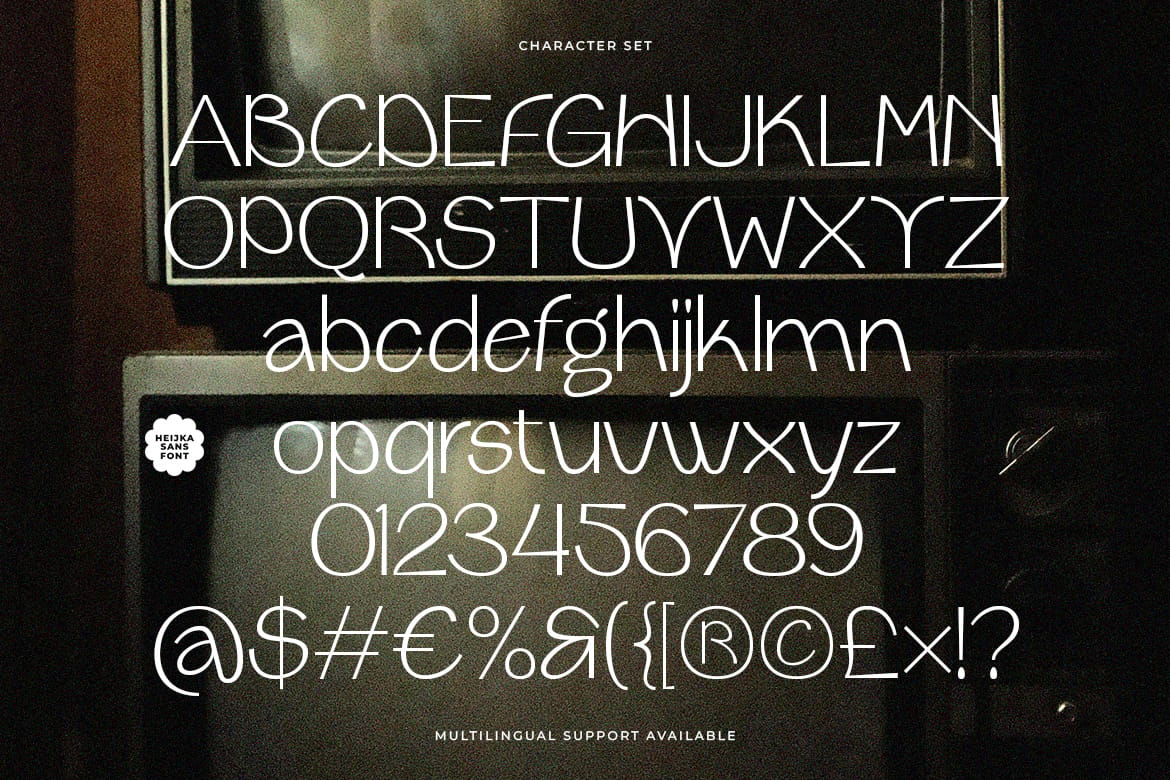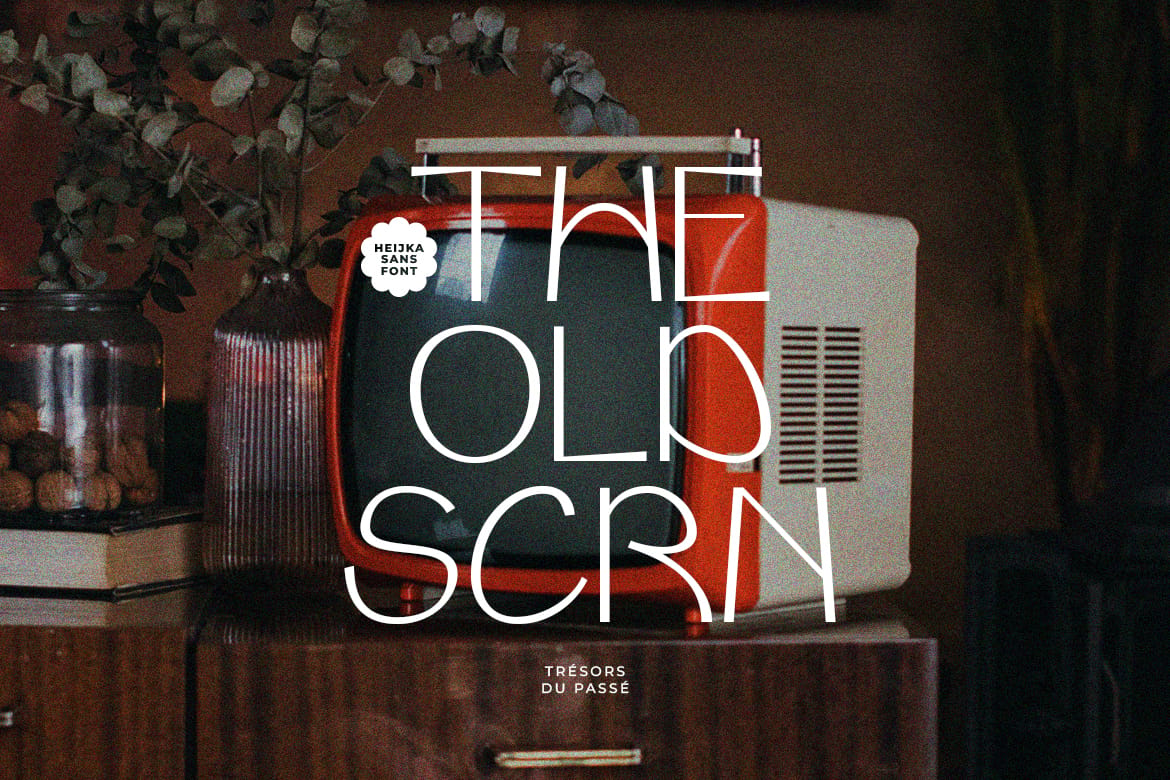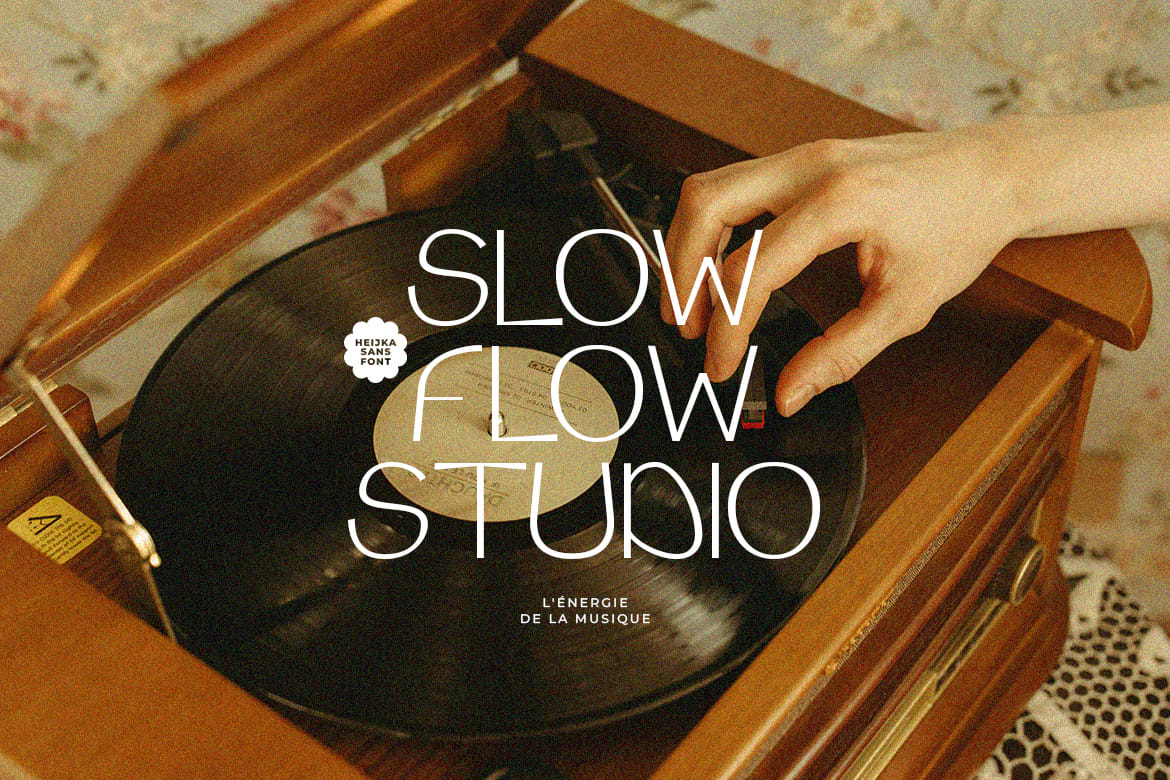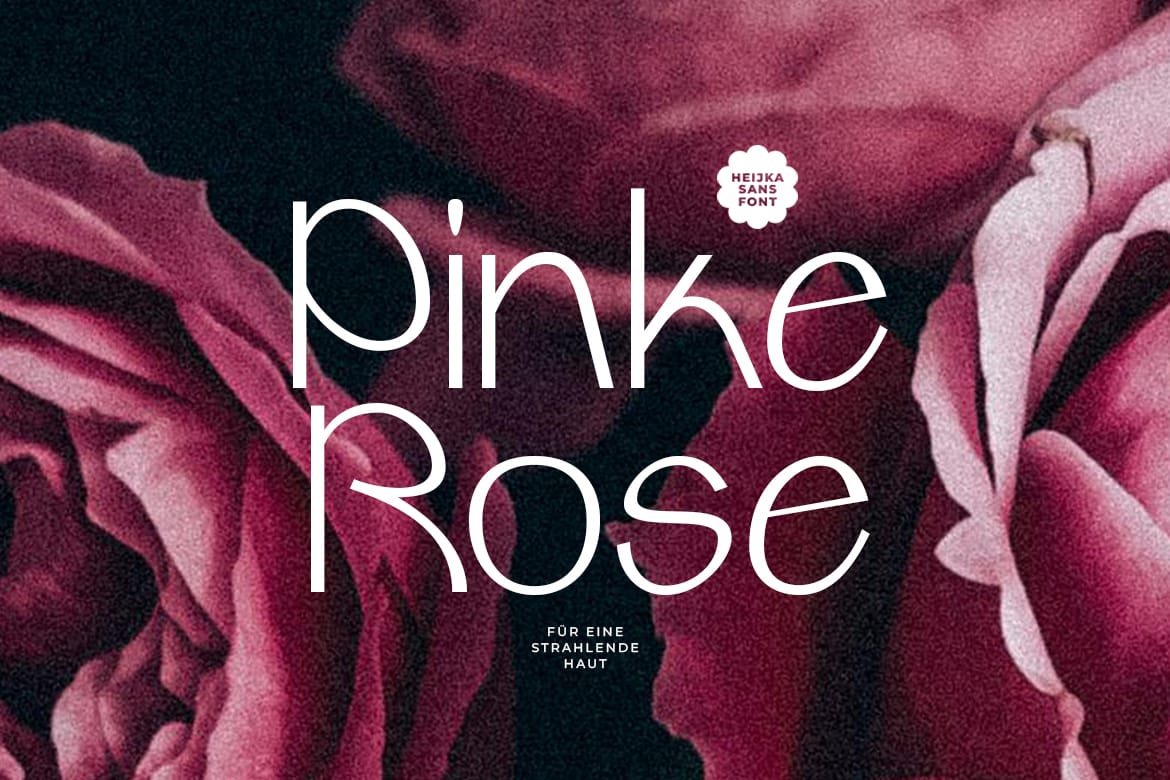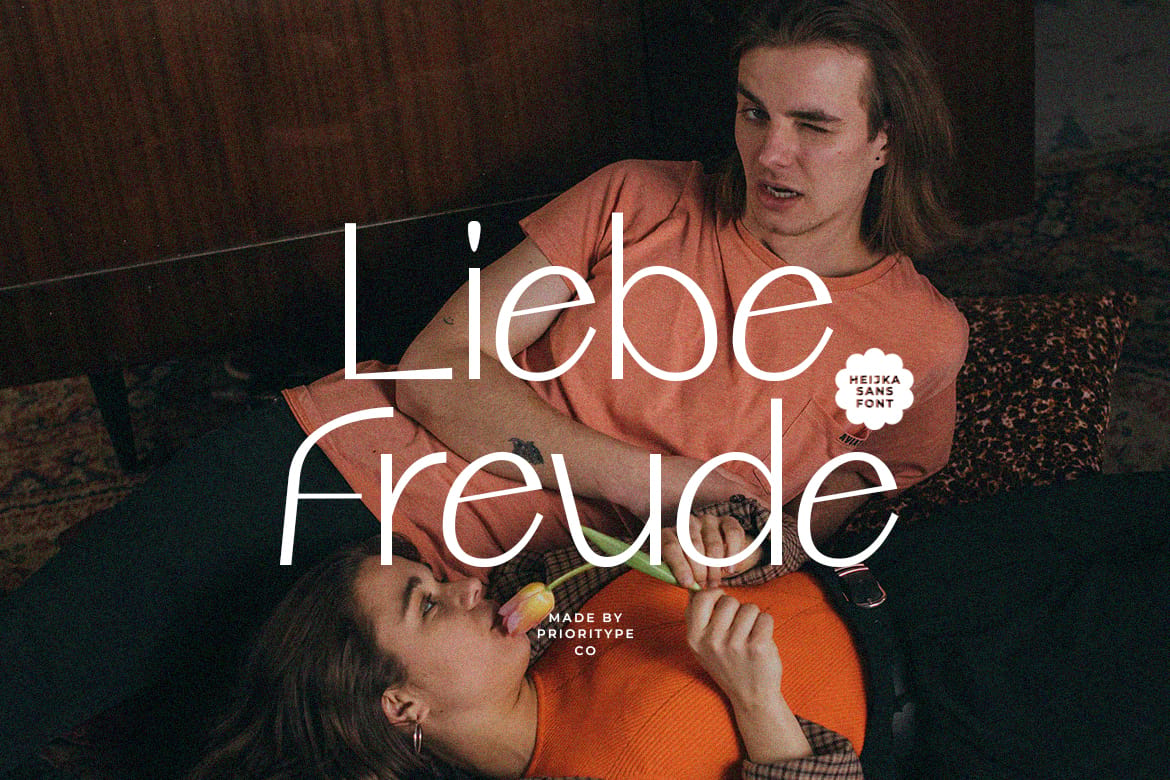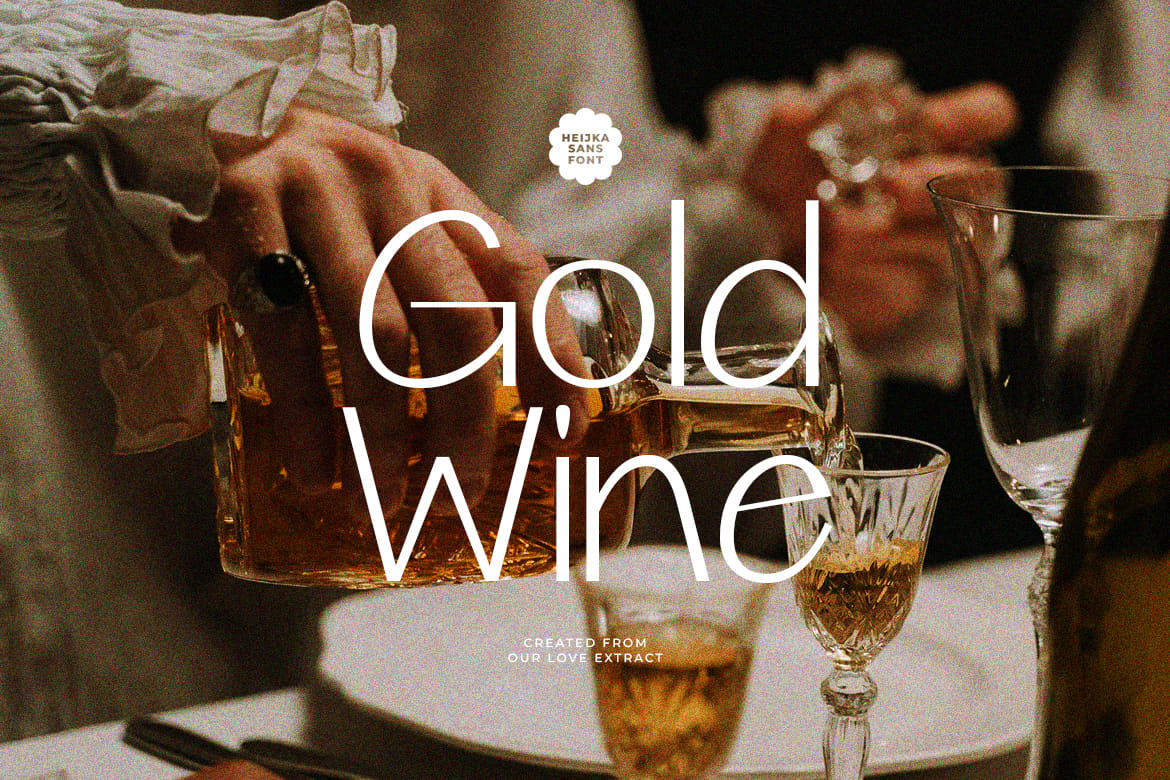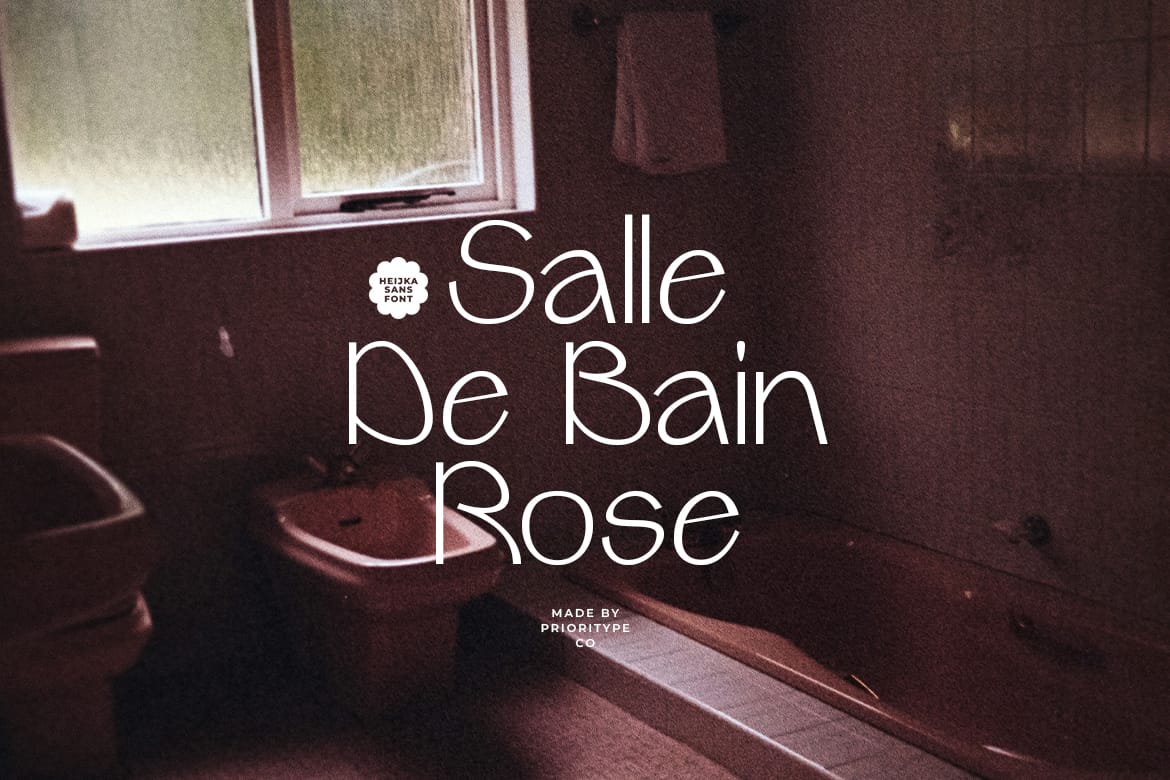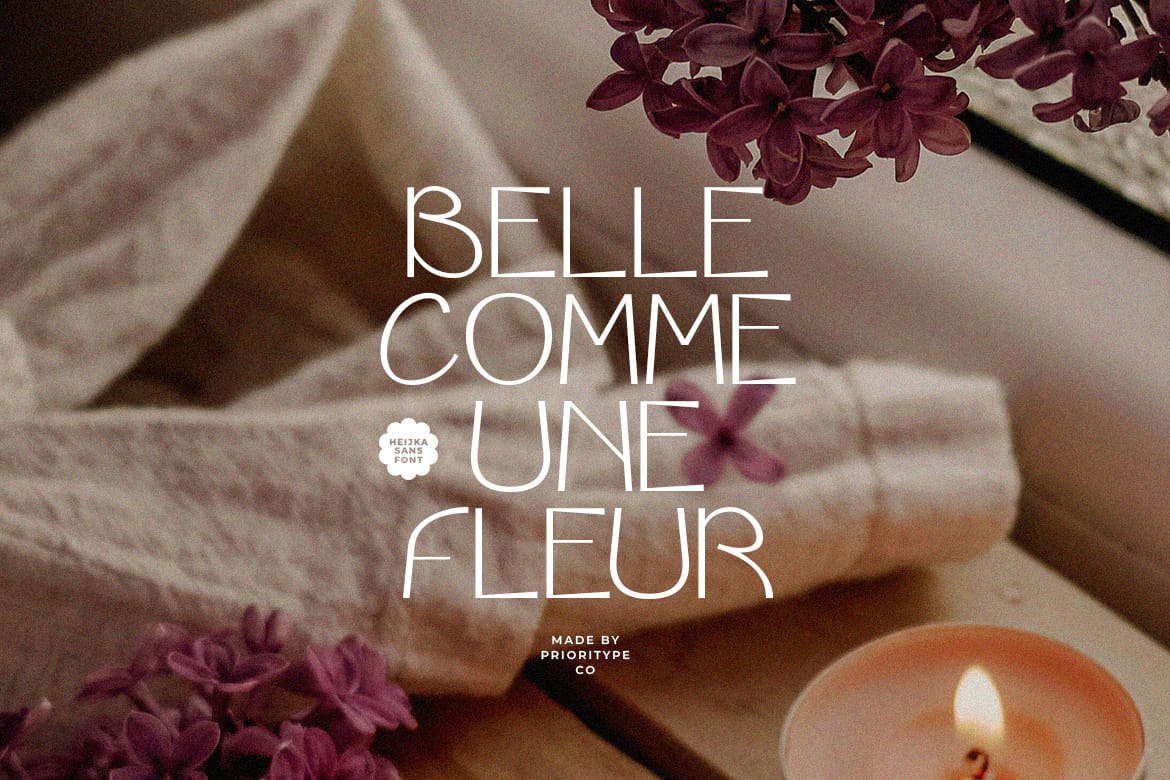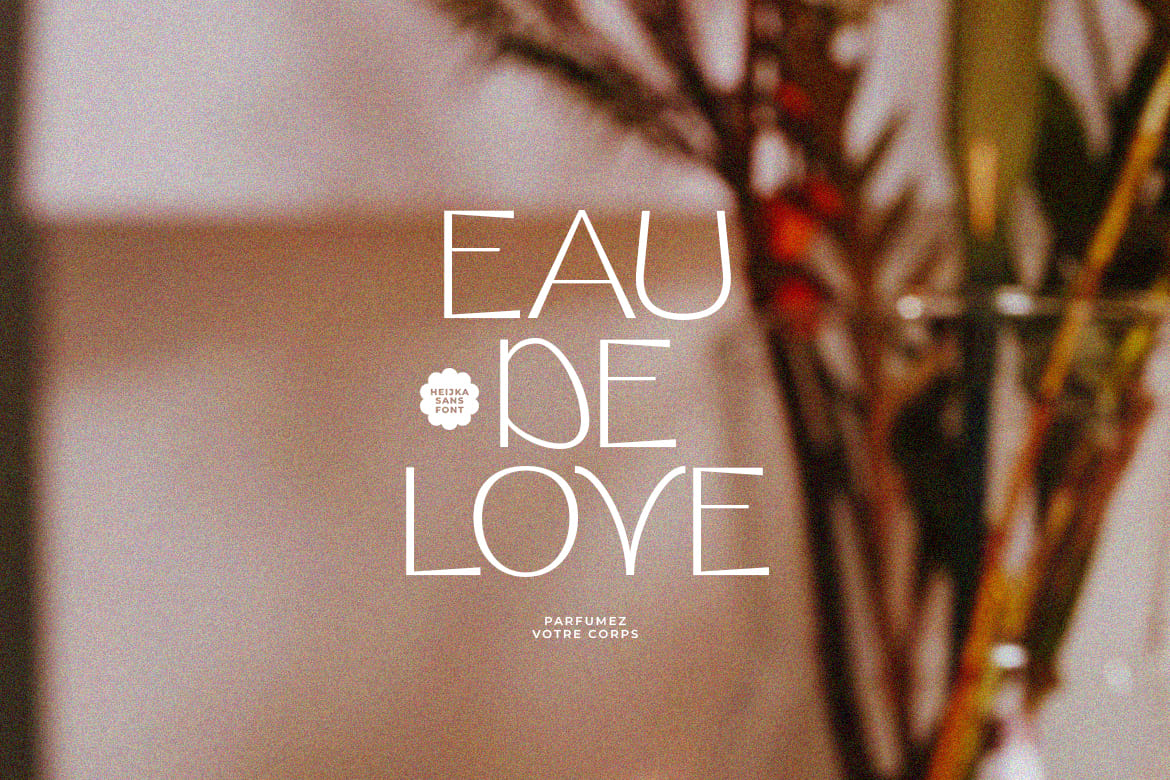
Heijka Sans
Expressive display sans serif font. Modern style but still contains retro elements. Suitable for branding, logo and poster designs.
Features: Uppercase, Lowercase, Numeral, Punctuation & Multilingual.
Multilingual contained: Afrikaans, Albanian, Asu, Basque, Bemba, Bena, Breton, Catalan, Chiga, Cornish, Danish, Dutch, English, Estonian, Filipino, Finnish, French, Friulian, Galician, German, Gusii, Indonesian, Irish, Italian, Kabuverdianu, Kalenjin, Kinyarwanda, Luo, Luxembourgish, Luyia, Machame, Makhuwa-Meetto, Makonde, Malagasy, Manx, Morisyen, North Ndebele, Norwegian Bokmål, Norwegian Nynorsk, Nyankole, Oromo, Portuguese, Quechua, Romansh, Rombo, Rundi, Rwa, Samburu, Sango, Sangu, Scottish Gaelic, Sena, Shambala, Shona, Soga, Somali, Spanish, Swahili, Swedish, Swiss German, Taita, Teso, Uzbek (Latin), Volapük, Vunjo, Zulu.
- Modern retro sans-serif display font
- Expressive style for logos and branding